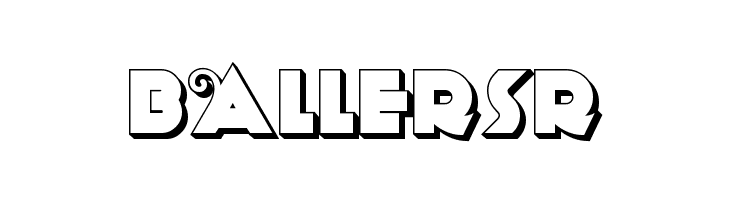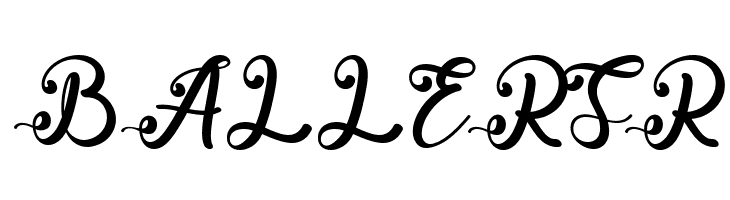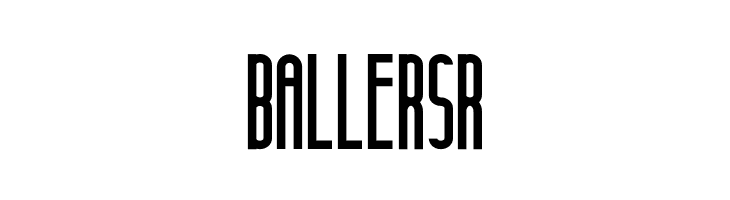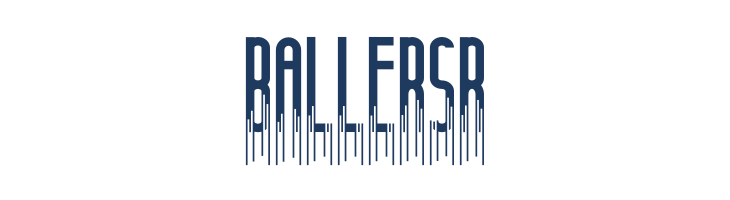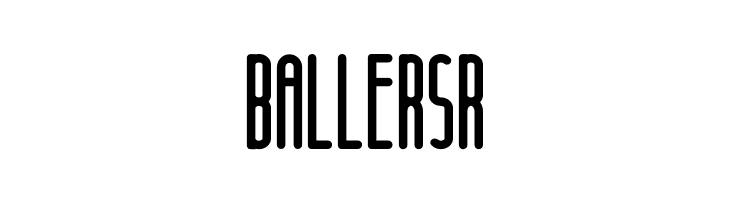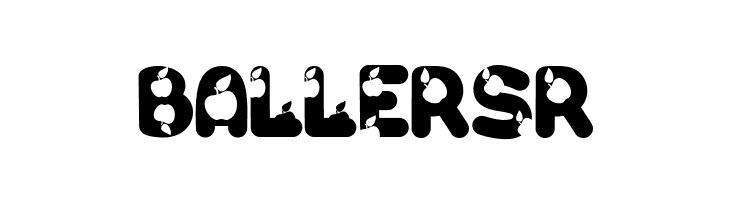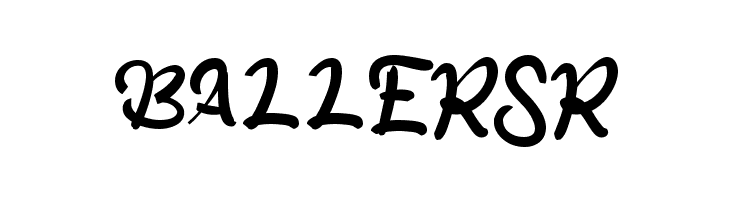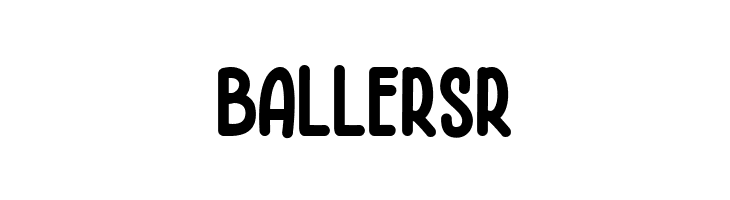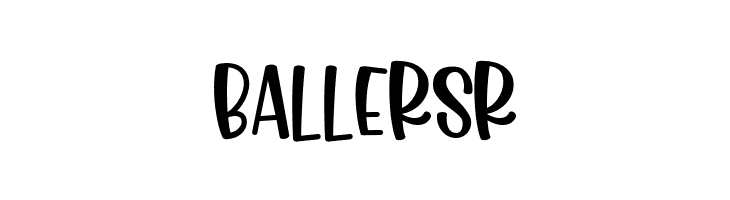
Ember Font
A playful, bold font with dynamic and whimsical character shapes.
Ibleum Font
An elegant, decorative script font with high contrast and flowing lines.
EOne Font
A modern, rounded sans-serif font with clean lines and a friendly appearance.
Gentium Plus Font
A classic serif typeface with elegant strokes and balanced proportions.
Suranna Font
A classic serif font with elegant strokes and refined design.
Discipuli Britannica Bold Font
A bold, cursive font with a playful and energetic style.
OPTICoyonetBold Font
A dynamic and elegant script font with flowing, cursive letterforms.
Budidaya Font
A bold, expressive handwritten font with thick strokes and dynamic shapes.
OPTIRussian-Gothic Font
A bold, modern sans-serif font with clean lines and geometric structure.
QuattrocentoSans-Bold Font
A bold, modern sans-serif font with clean lines and balanced proportions.
Gruenewald VA Font
A cursive, handwritten-style font with smooth, connected letters and a natural flow.
BrophyOpti-Bold Font
A bold, classic serif font with strong strokes and elegant serifs.
Big Shoulders Display Bold Font
A bold, modern typeface with tall, narrow letterforms and strong vertical emphasis.
Black And White Picture Regular Font
A playful, hand-drawn font with an artistic and whimsical style.
Komika Slick Font
A playful, handwritten font with smooth, rounded edges and a dynamic slant.
Muli SemiBold Font
A clean, modern typeface with balanced proportions and excellent readability.
Voyage Fantastique Straight Regular Font
A bold, geometric font with a modern and assertive style.
SF Buttacup Lettering Shaded Font
A bold, shaded font with a playful, three-dimensional effect.
Blade Runner Movie Font 2 Font
A bold, futuristic font with sharp angles and a dynamic slant.
League Script Font